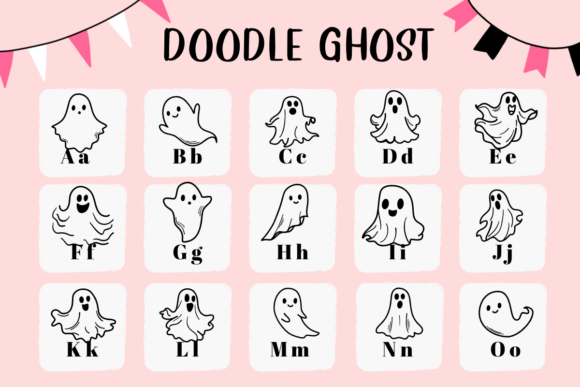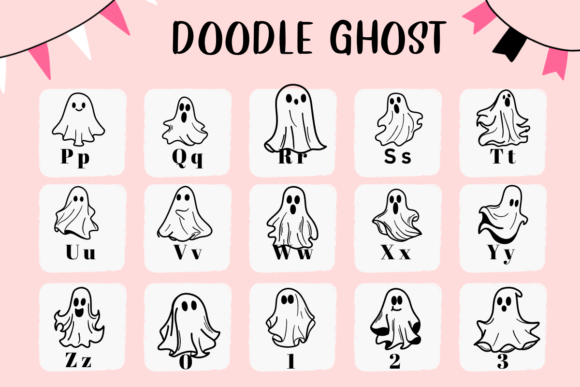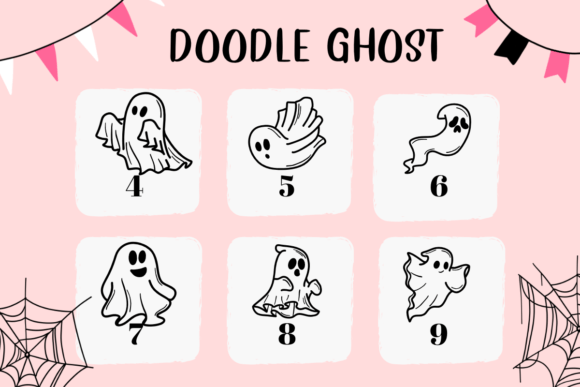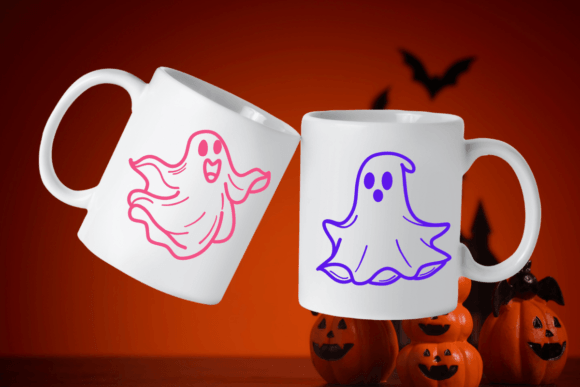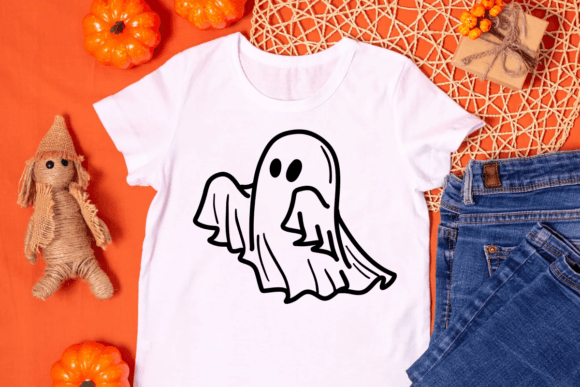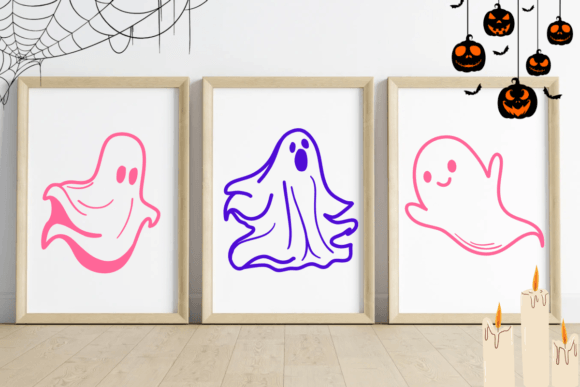
Doodle Ghost Font: The Ultimate Addition to Your Creative Projects
Are you looking for a font that adds a touch of whimsy and fun to your creative projects? Look no further than the Doodle Ghost Font. This adorable dingbat font is perfect for designers, crafters, and DIY enthusiasts who want to add a playful twist to their work. With its Halloween theme, Doodle Ghost Font is ideal for seasonal projects, but its versatility makes it suitable for a wide range of applications.
What is Doodle Ghost Font?
Doodle Ghost Font is a unique dingbat font that features cute and quirky ghost designs. The font is made up of adorable ghost illustrations that can be used to add a touch of personality to your projects. Whether you’re creating wedding invitations, DIY crafts, decorations, logos, or any other type of creative project, Doodle Ghost Font is the perfect addition.
Features of Doodle Ghost Font
- Cute and Quirky Designs: Doodle Ghost Font features adorable ghost illustrations that are sure to bring a smile to your face.
- Halloween Theme: The font’s Halloween theme makes it perfect for seasonal projects, but its versatility ensures it can be used for other creative endeavors.
- Dingbat Font: As a dingbat font, Doodle Ghost Font consists of symbols and illustrations rather than traditional letters.
Uses of Doodle Ghost Font
Doodle Ghost Font is a versatile font that can be used for a wide range of creative projects. Here are some ideas to get you started:
- Wedding Invitations: Add a touch of whimsy to your wedding invitations with Doodle Ghost Font.
- DIY Crafts: Use the font to create cute and quirky DIY crafts, such as decorations, cards, and gift tags.
- Decorations: Create spooky-ooky decorations for Halloween or add a touch of personality to your home decor with Doodle Ghost Font.
- Logos: Use the font to create unique and memorable logos for your business or brand.
- Social Media Graphics: Add a touch of personality to your social media graphics with Doodle Ghost Font.
Tips for Using Doodle Ghost Font
Doodle Ghost Font is a fun and versatile font that is perfect for designers, crafters, and DIY enthusiasts. With its cute and quirky ghost designs, Halloween theme, and ease of use, it’s the perfect addition to any creative project. Whether you’re creating wedding invitations, DIY crafts, decorations, logos, or social media graphics, Doodle Ghost Font is sure to bring a touch of personality and whimsy to your work.